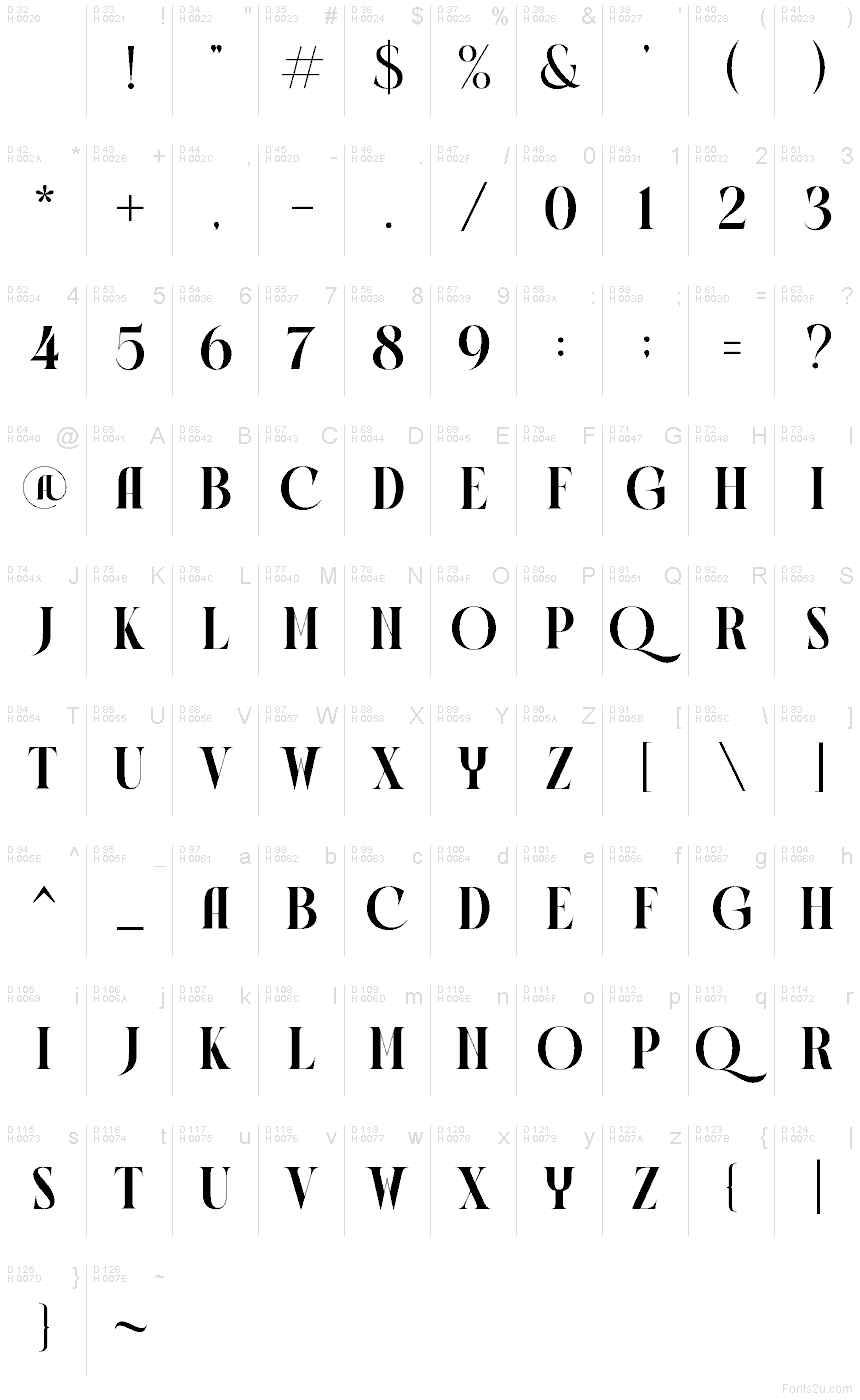
Jisoya font by Graphicxell is a free serif typeface with a striking, sculpted rhythm. Its blade-like curves flare into crisp points, while generous ovals feel inky and lush, almost carved. Tall proportions and tight, confident spacing give headlines a poised, fashion-forward snap-sleek without losing warmth.
Using Jisoya, titles and logos come off refined yet dramatic, making it a natural fit for fashion branding, magazine mastheads, perfume or skincare packaging, posters, and high-end book covers. The hefty strokes hold up at large sizes, and the tapering details reward close viewing. Pair this free font with a quiet grotesk sans for body copy, letting Jisoya do the talking in names, headlines, and short pull quotes.